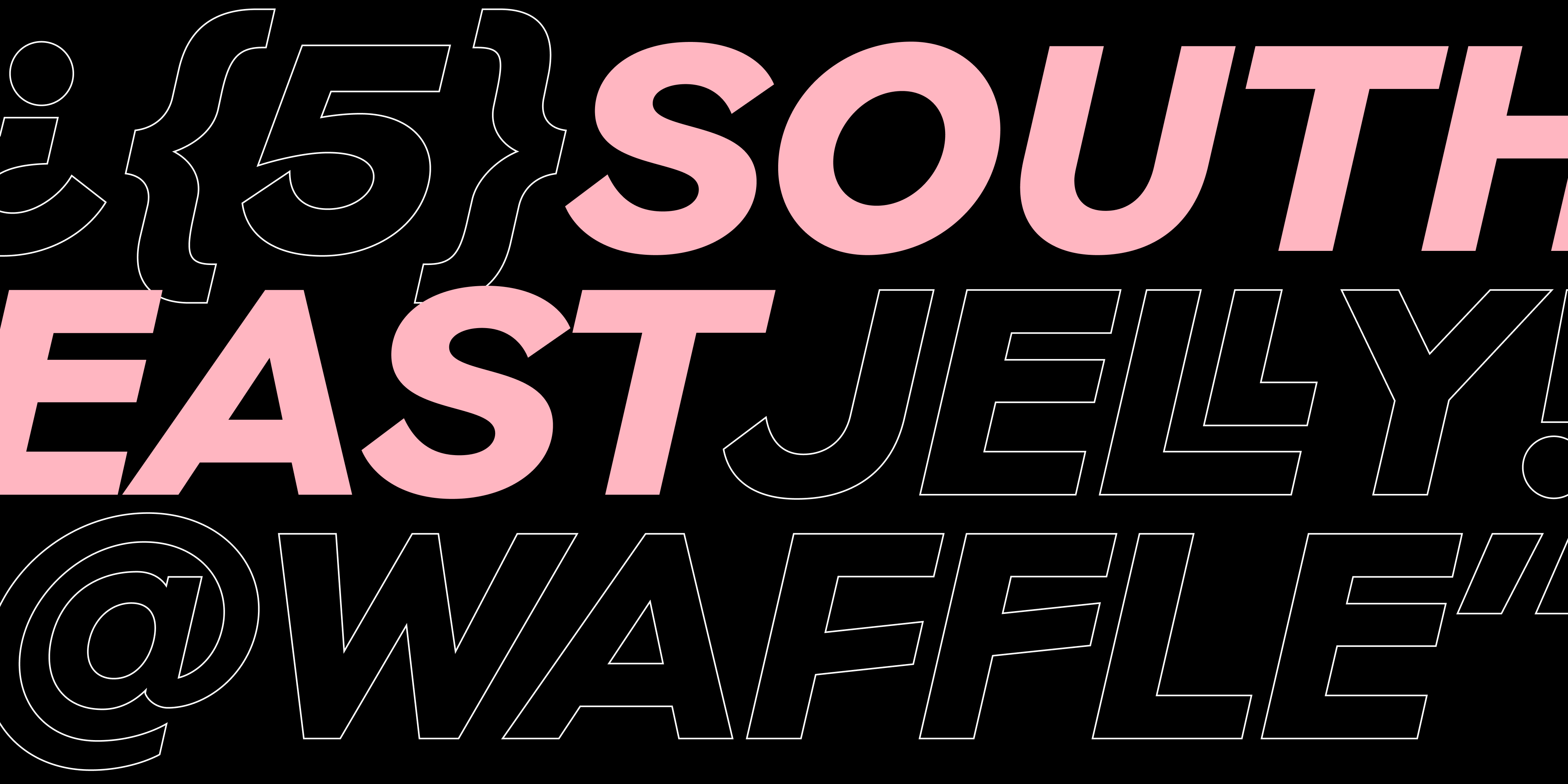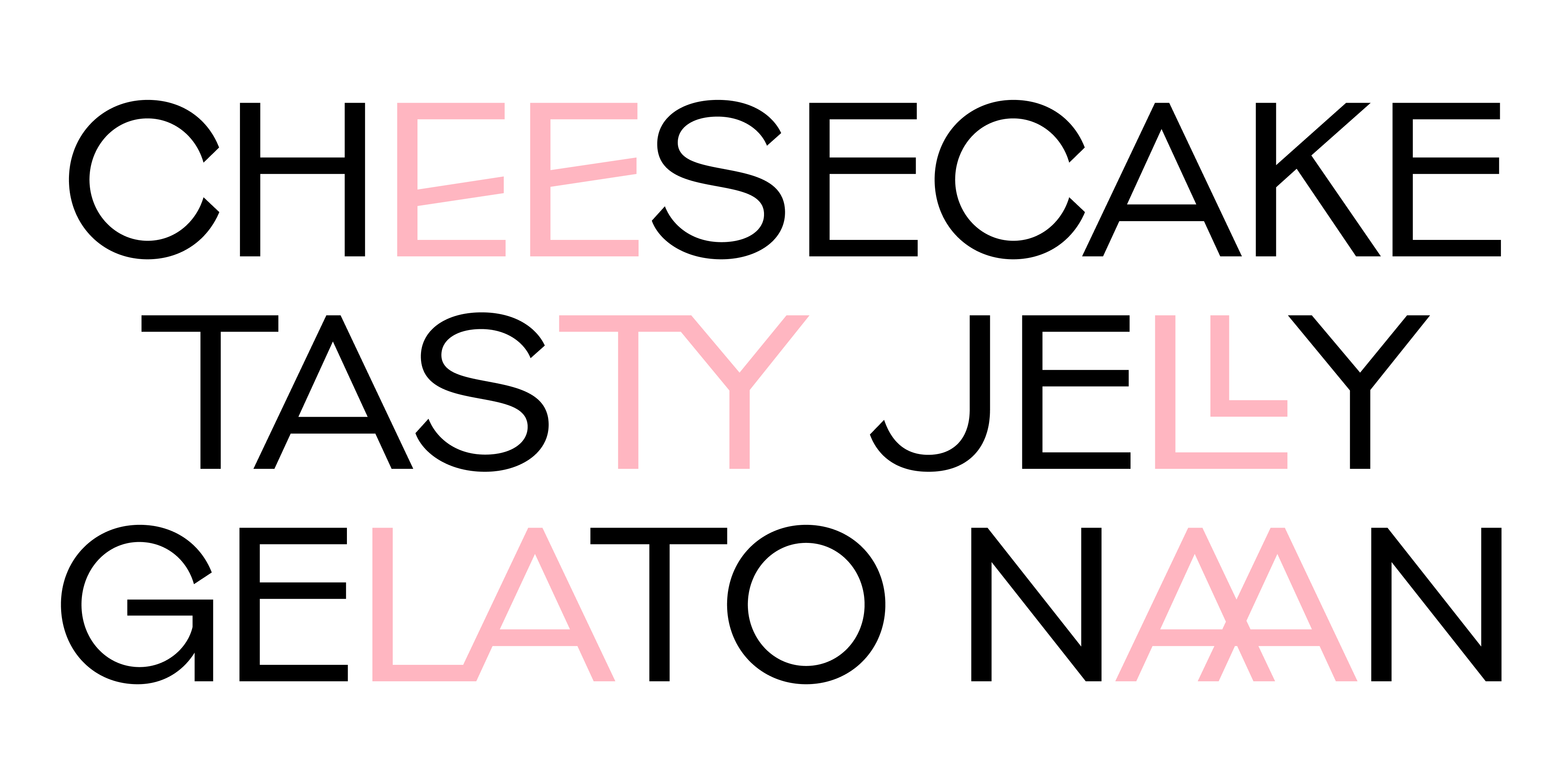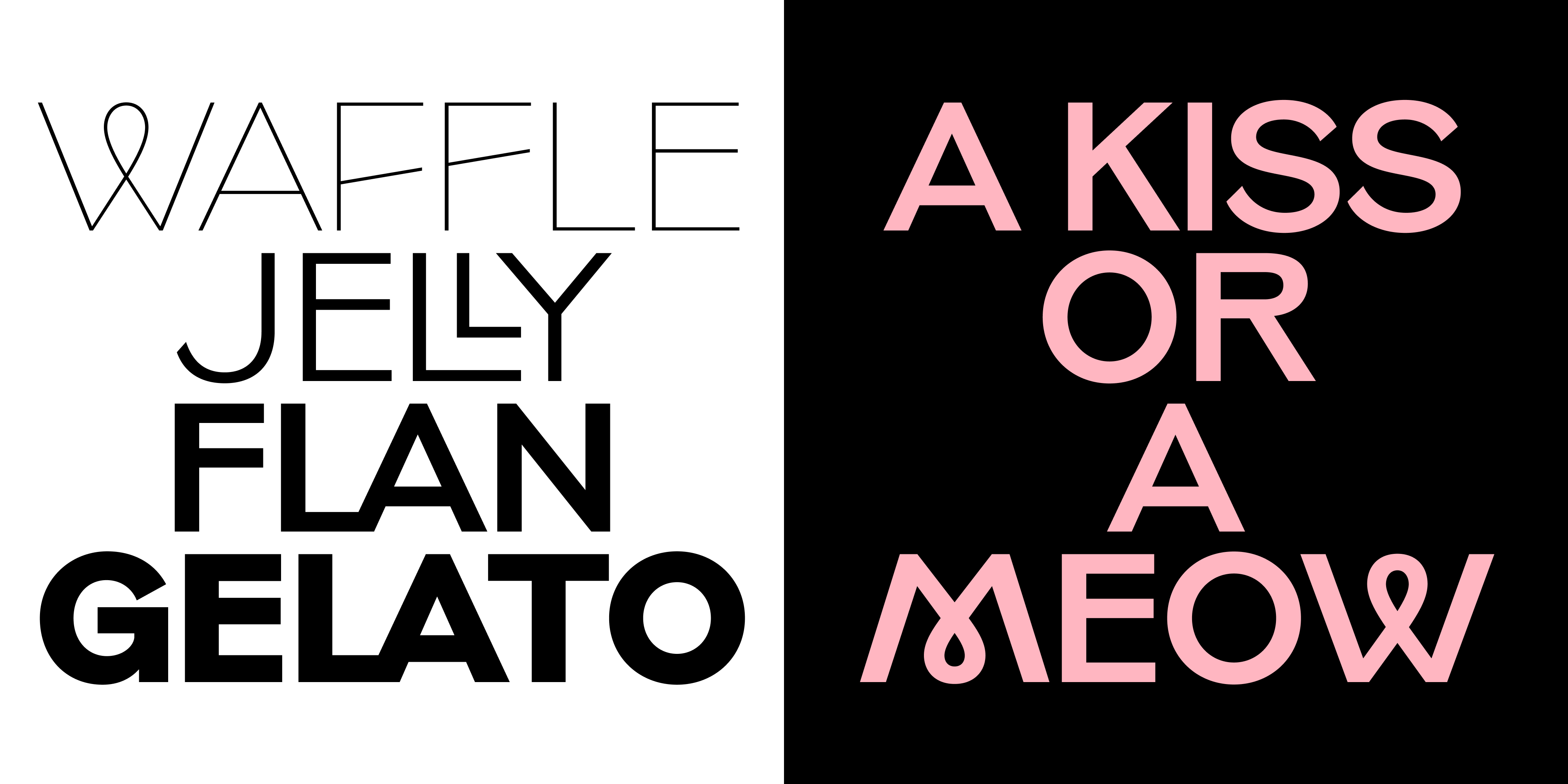
South East is a type family designed based on the shapes and compositions seen in Hangul, the Korean alphabet. With three different center heights and a good number of alternate letter shapes, it’s a type with many faces and many different expressions. South East works both as a display typeface, but it also works great in a text scenario, making it a versatile type family.